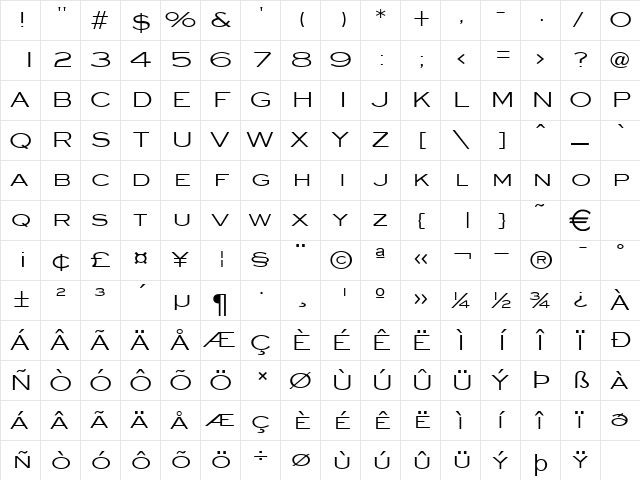
EyeglassWide Normal
Design Context for EyeglassWide Typeface
EyeglassWide offers clean, dependable letterforms without strong stylistic allegiance, making it a practical choice for designers who need flexibility.